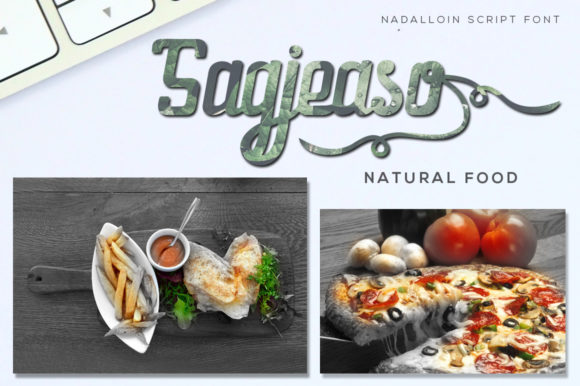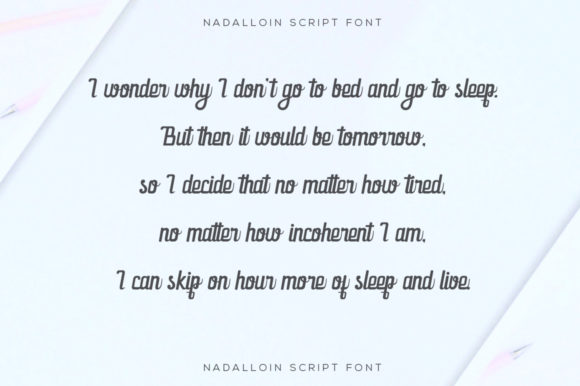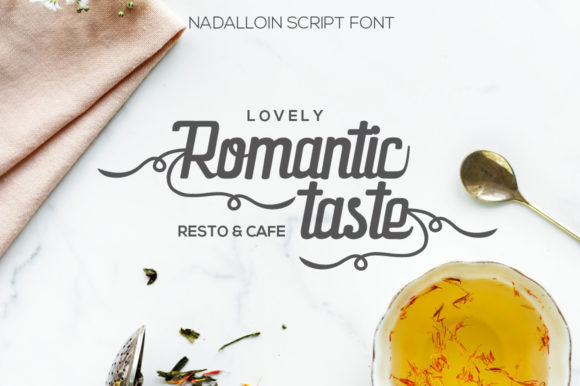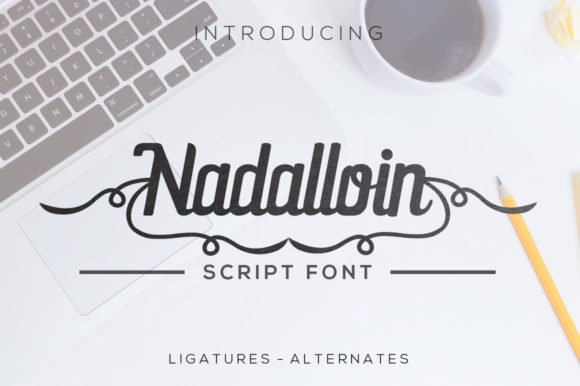
Introduction to Nadalloin Font
The Nadalloin is a geometric modern script font with vintage ornaments.
It’s suitable for greeting cards, branding materials, business cards, quotes, posters, and more .
Key Features of Nadalloin Font
Why Choose Nadalloin Font?
Nadalloin Font offers exceptional quality and versatility, making it a valuable addition to your design toolkit. Whether you’re creating for personal projects or commercial use, Nadalloin Font delivers professional results.